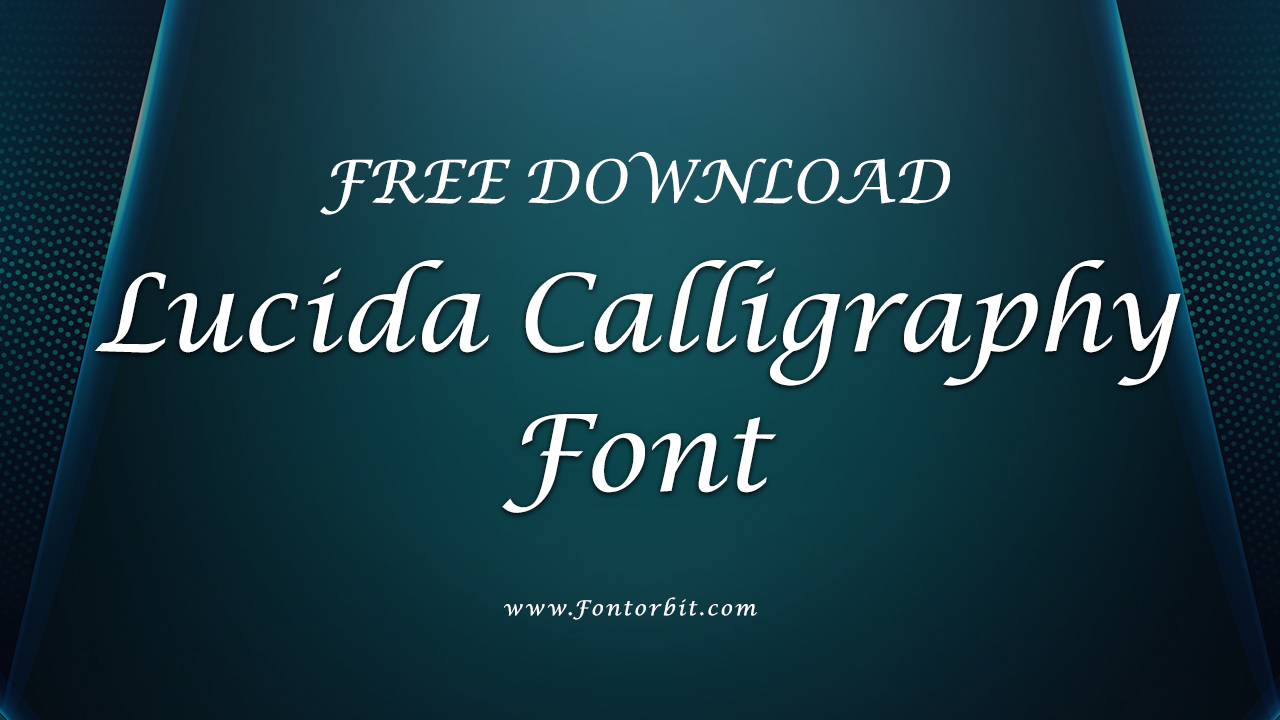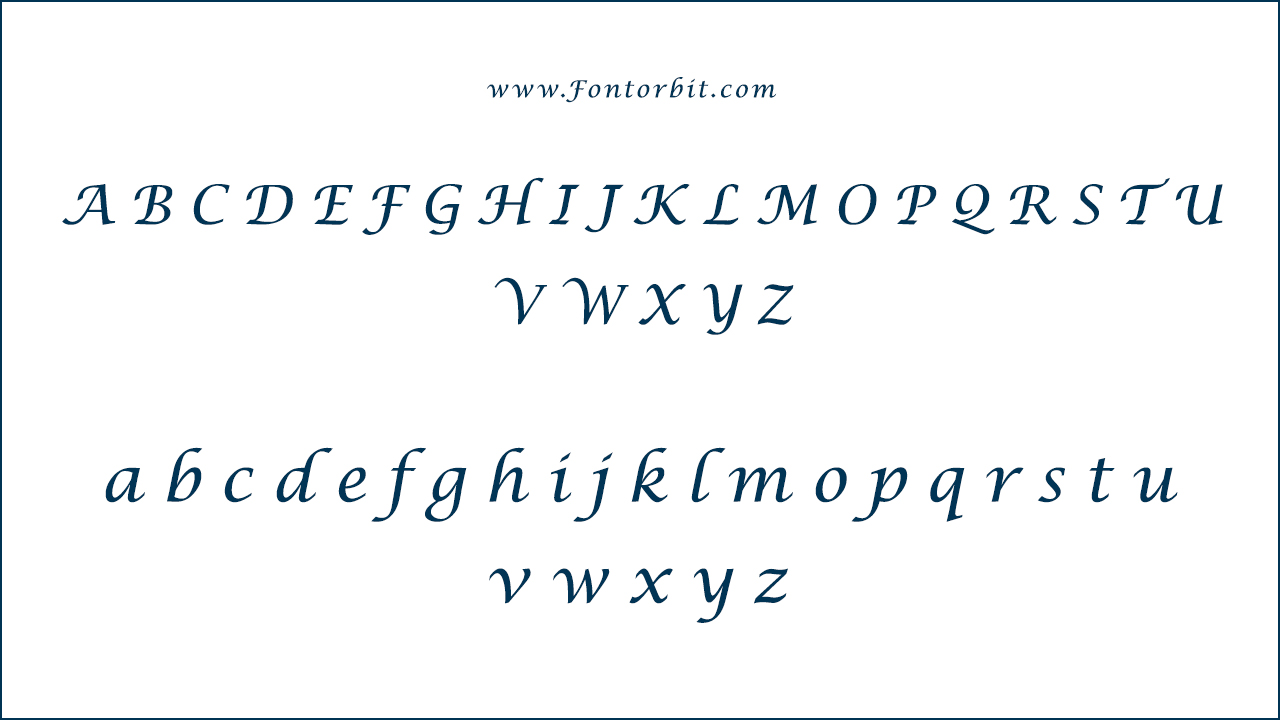
Lucida Calligraphy font is an elegant and highly readable script typeface designed by Kris Holmes and Charles Bigelow in 1984. As part of the broader Lucida family, Lucida Calligraphy stands out with its refined curves and flowing lines, making it an ideal choice for projects that demand a touch of sophistication and classic beauty.
Lucida Calligraphy is categorized as a script typeface and offers a graceful, handwritten, legible, and aesthetically pleasing style. This typeface family has a Standard character set with 255 glyphs supporting the basic range of Latin languages. The font features a comprehensive set of characters, including uppercase and lowercase letters, numerals, punctuation marks, and special symbols. The font family includes 5 styles:
Lucida Calligraphy’s elegant design makes it suitable for a variety of applications where a touch of formality and sophistication is desired. It excels in scenarios such as:
- Books
- Infographics
- Animated logos
- Email marketing templates
- Magazine and newspaper ads
- Theme design (WordPress, Shopify, etc.)
Lucida Calligraphy is a timeless script typeface that combines classic calligraphic beauty with modern readability. Its graceful strokes and elegant design make it an excellent choice for any project that requires a refined and sophisticated touch. Whether for print or digital media, Lucida Calligraphy provides the versatility and style needed to make your designs stand out.